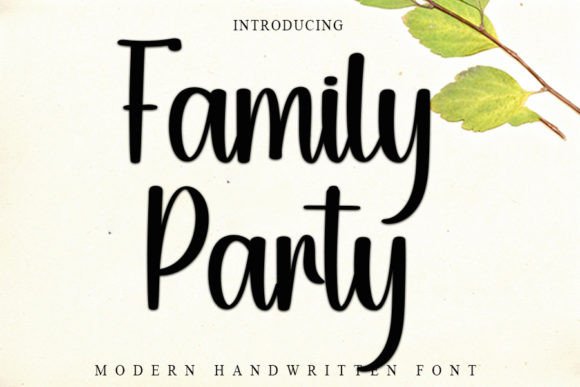
Embrace the Charm of Family Party Font: A Handcrafted Masterpiece for Your Creative Expression!
In a world where digital communication often feels impersonal and detached, the Family Party Font emerges as a refreshing antidote, a font family that captures the warmth and charm of handwritten notes, inviting a personal touch to your digital creations. Its elegant strokes, reminiscent of a skilled calligrapher's penmanship, infuse your designs with a sense of authenticity and heartfelt connection.
Immerse yourself in the beauty of this script font, meticulously crafted by PiPi Creative, a renowned font foundry known for their dedication to excellence. Each letterform in the Family Party Font is a testament to their artistry, meticulously designed with graceful curves and delicate flourishes that dance across the page. The result is a font that exudes elegance, sophistication, and a touch of whimsy, making it the perfect choice for projects that demand a personal touch.
Discover the versatility of the Family Party Font, a font that adapts effortlessly to a myriad of creative endeavors. Whether you're crafting heartfelt invitations, designing eye-catching social media posts, or creating personalized greeting cards, this font will elevate your designs with its timeless appeal. Its charming character adds a touch of warmth to any project, inviting your audience to connect with your message on a deeper level.
With the Family Party Font, you'll find endless opportunities to express your creativity and make a lasting impression. Its distinct and timeless style will transform your designs into captivating works of art, leaving an indelible mark on the hearts and minds of your audience. Embrace the power of handwritten charm and embark on a creative journey with the Family Party Font today!